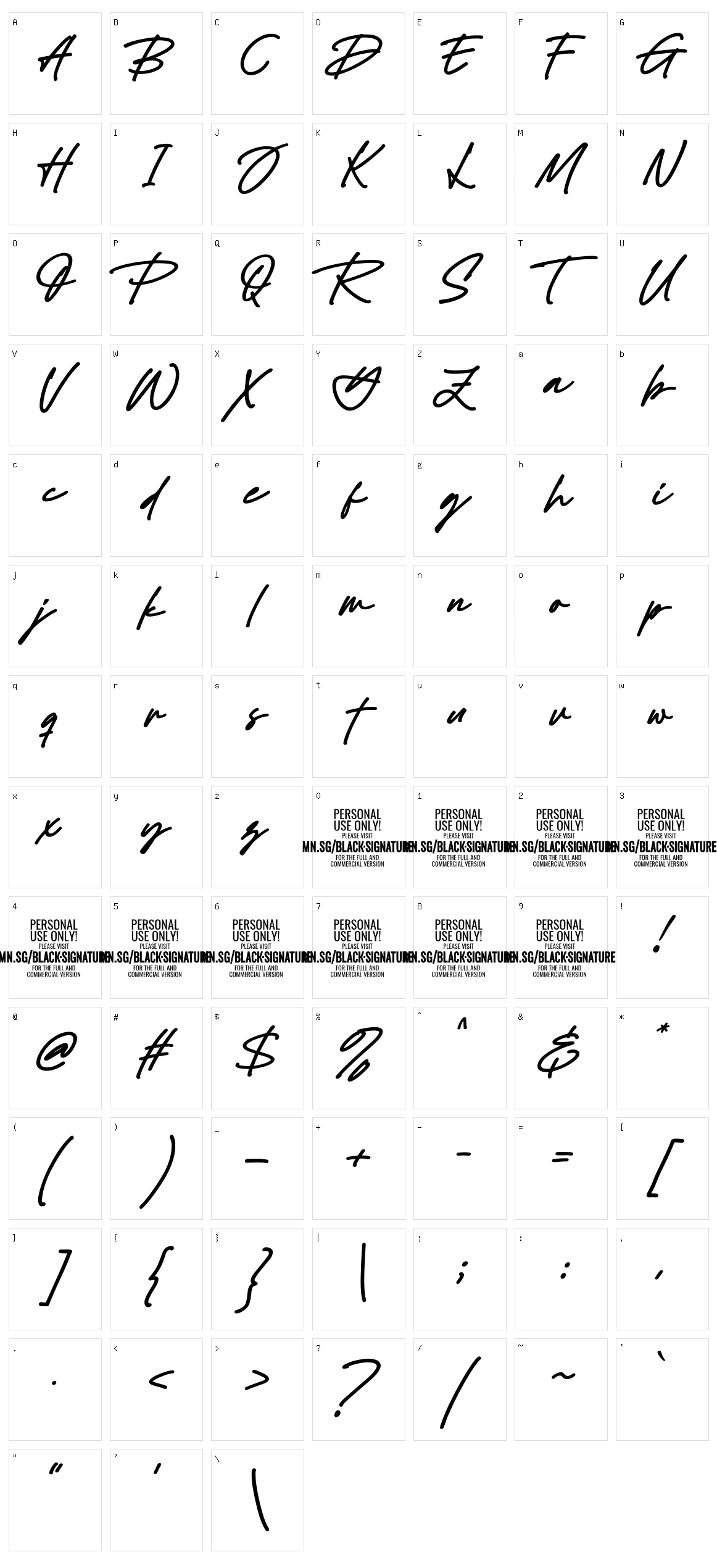
Black Signature is a bold handwriting font with a natural & stylish flow.
With a strong and confident personality, the script lettering was made with the intention to be used for your personal branding, but works well for all types of applications, such as photography signage or a handwritten product logotype.
The font is built with advanced OpenType functionality and has a guaranteed top-notch quality, containing stylistic and contextual alternates, ligatures and more features; all to give you full control and customizability.
It has extensive lingual support, covering all Latin-based languages, from North Europe to South Africa, from America to South-East Asia.
It contains all characters and symbols you'll ever need, including all punctuation and numbers.